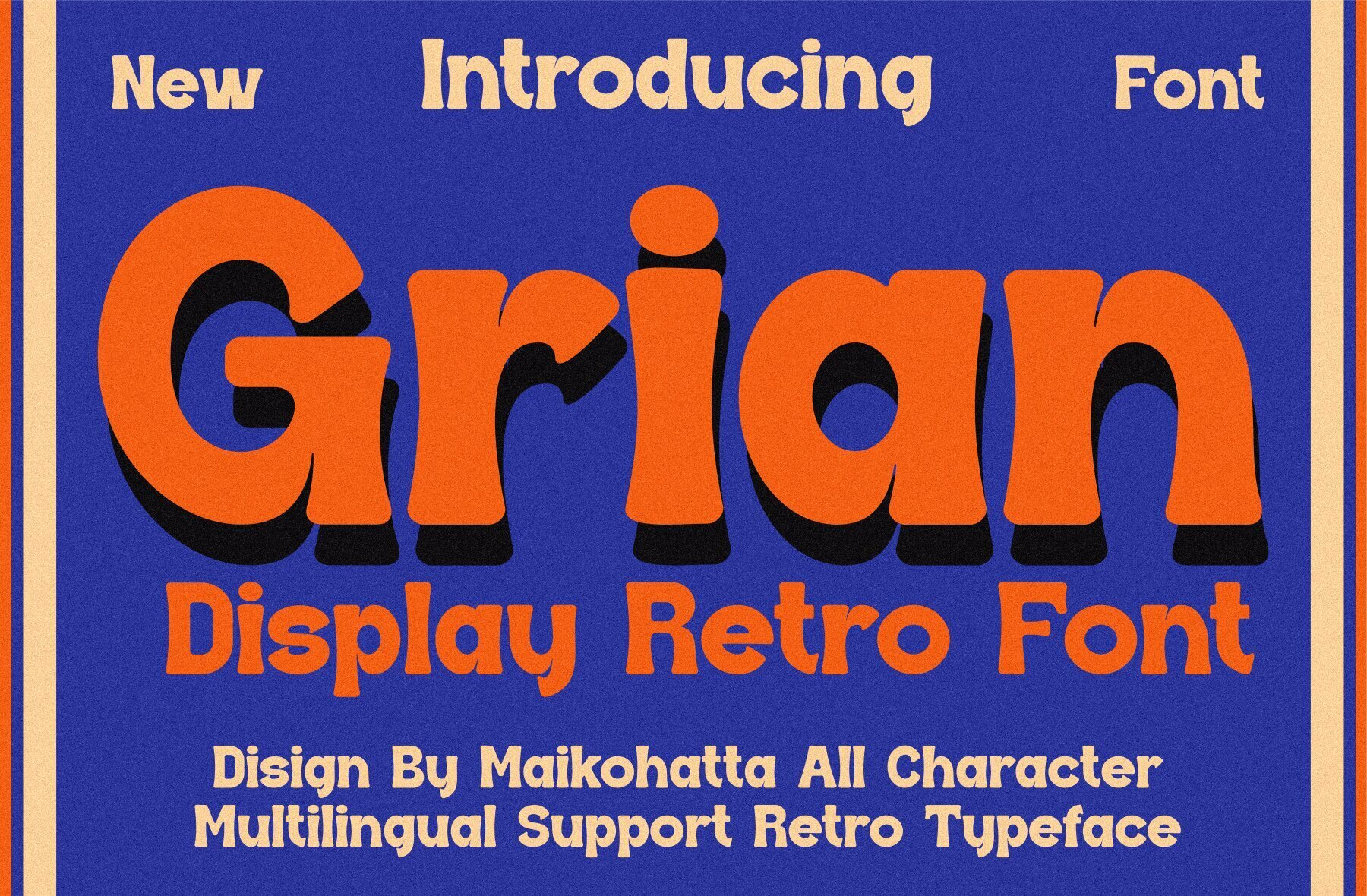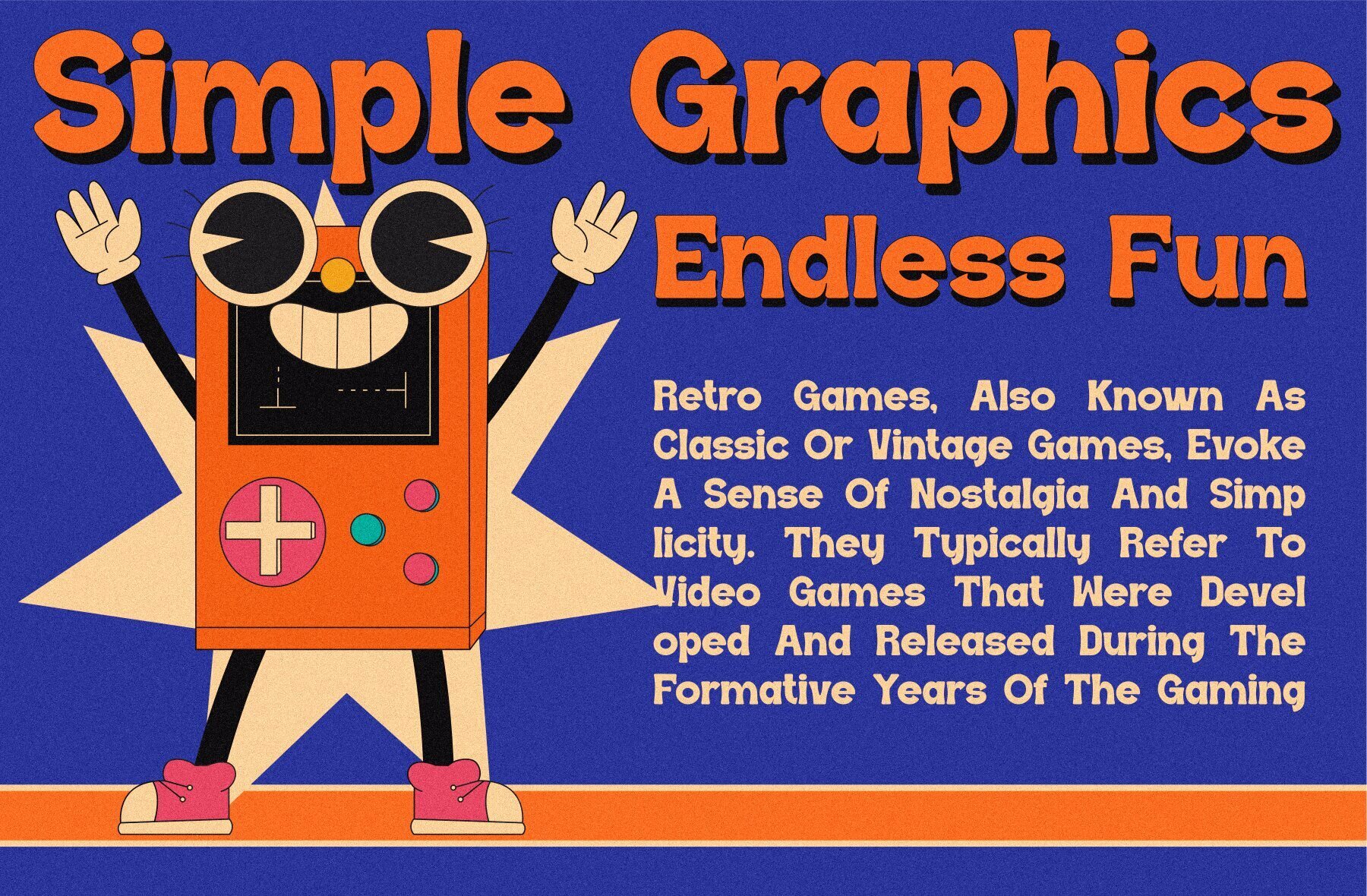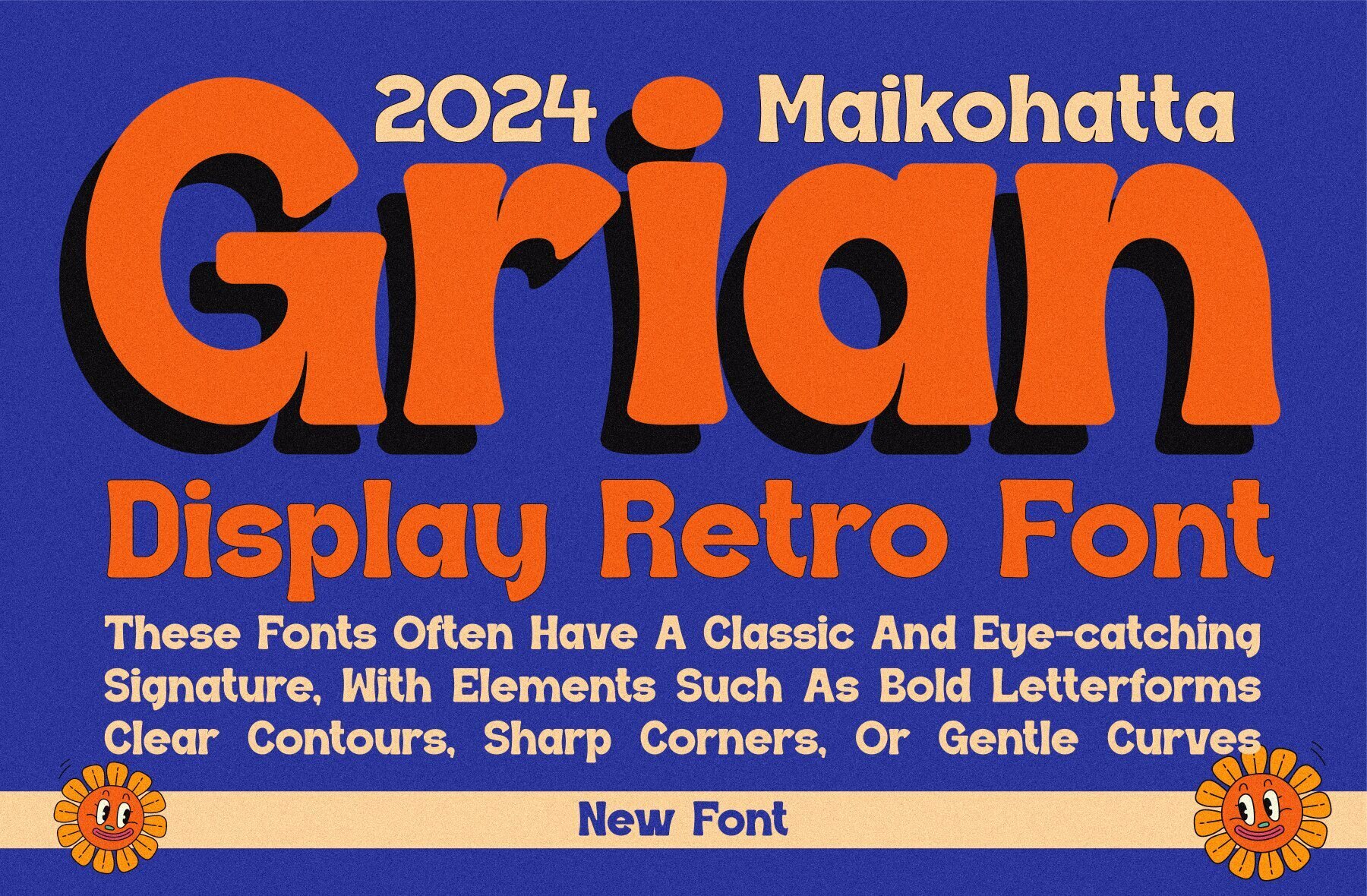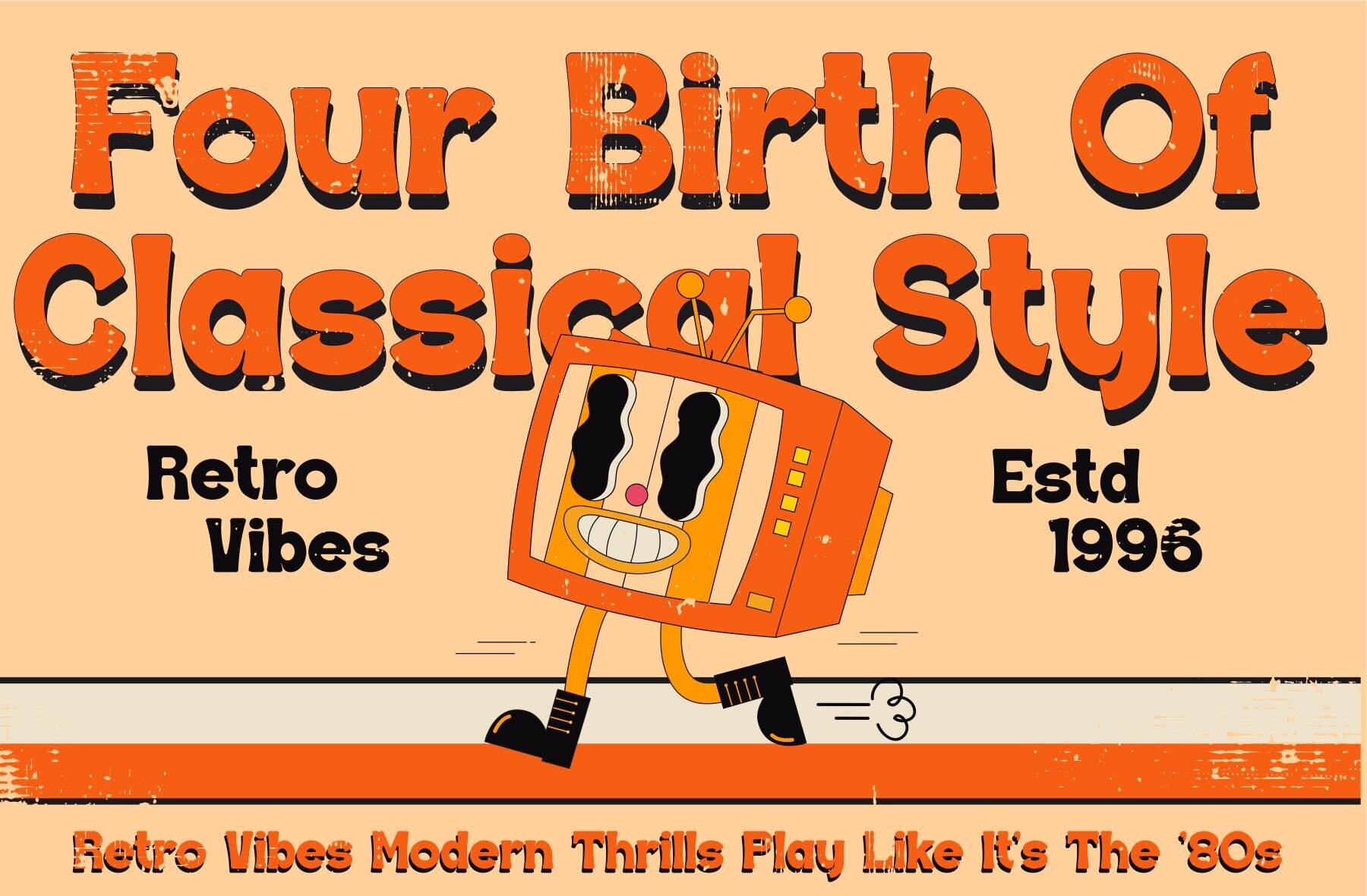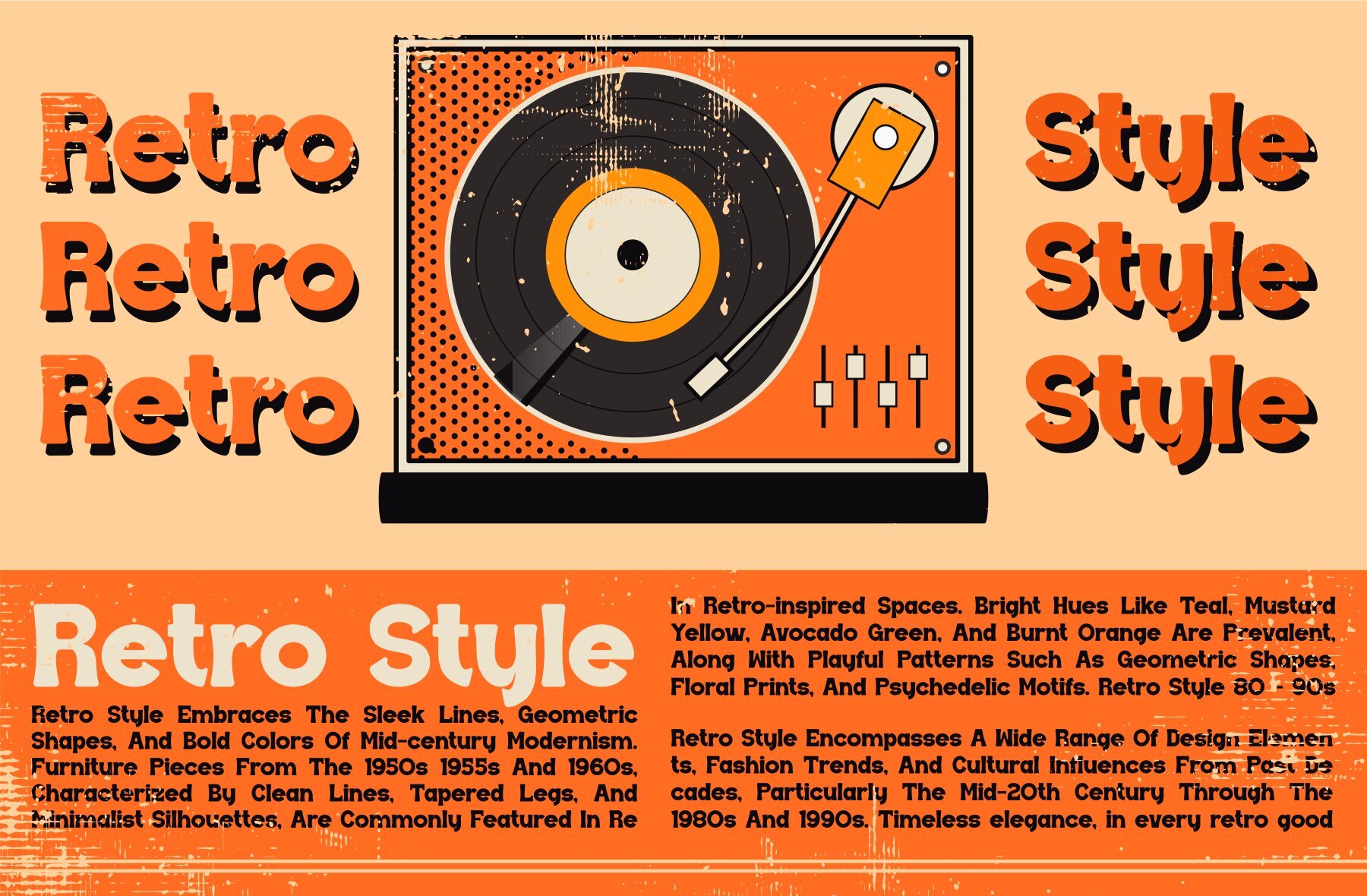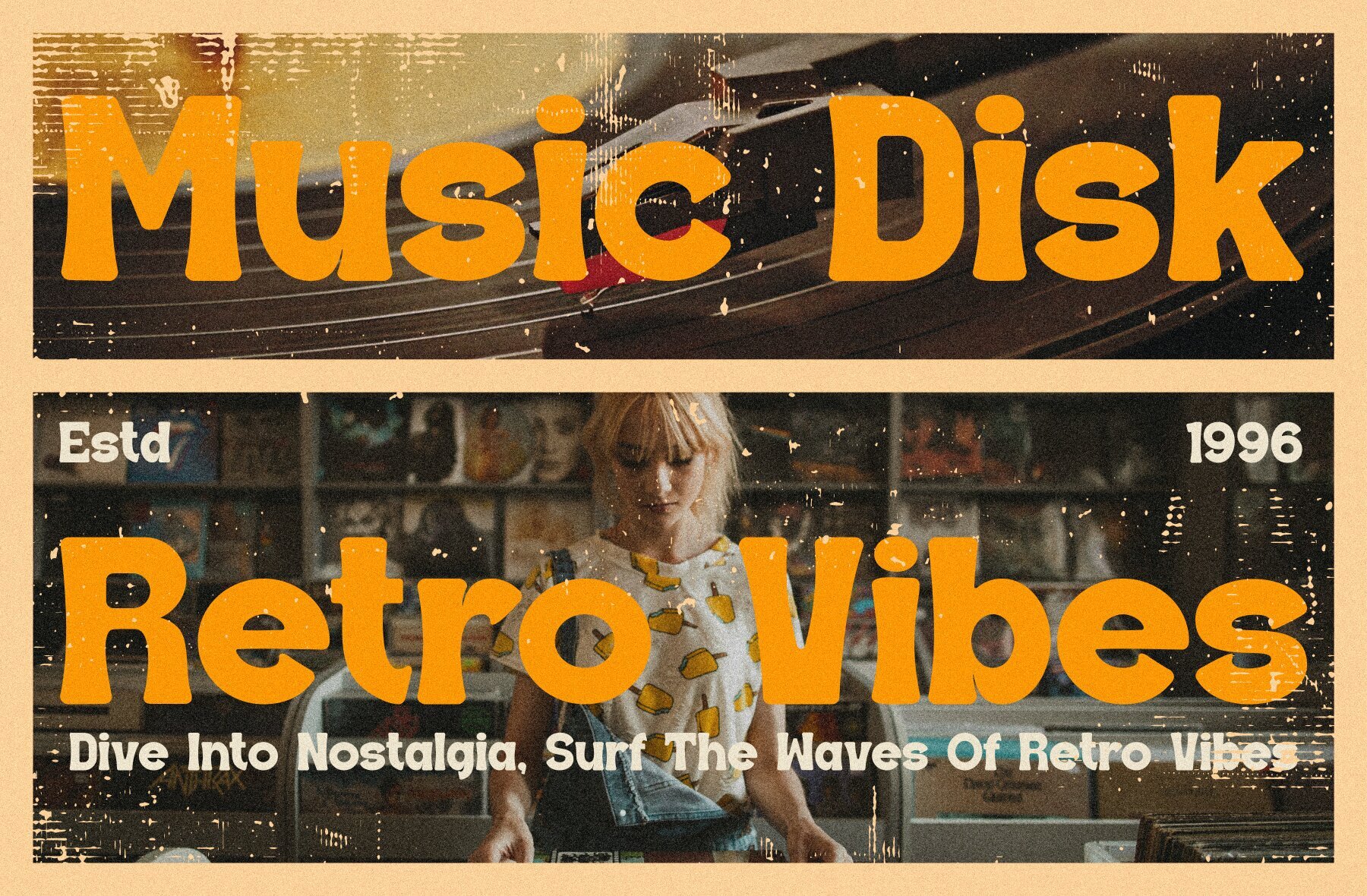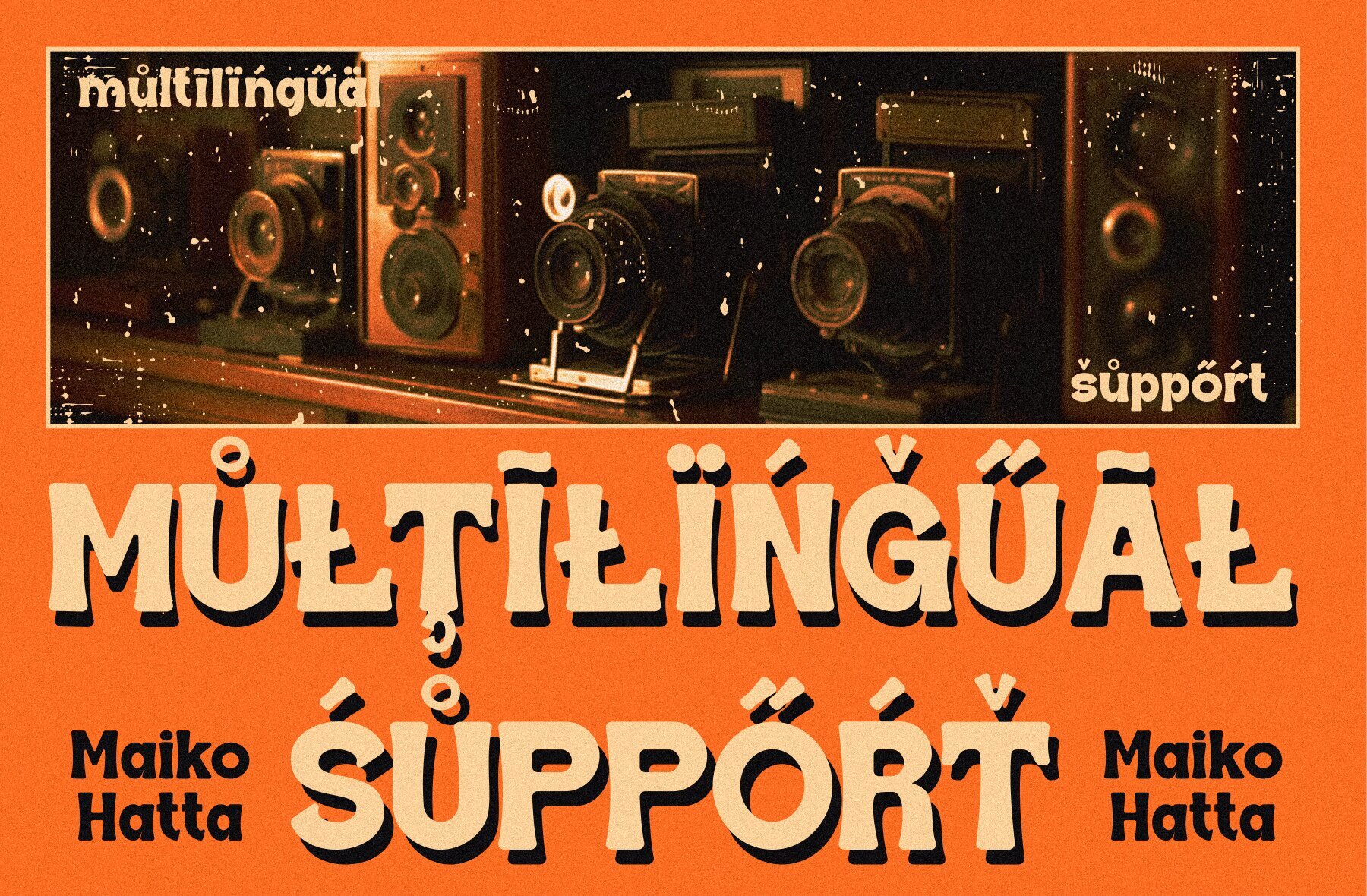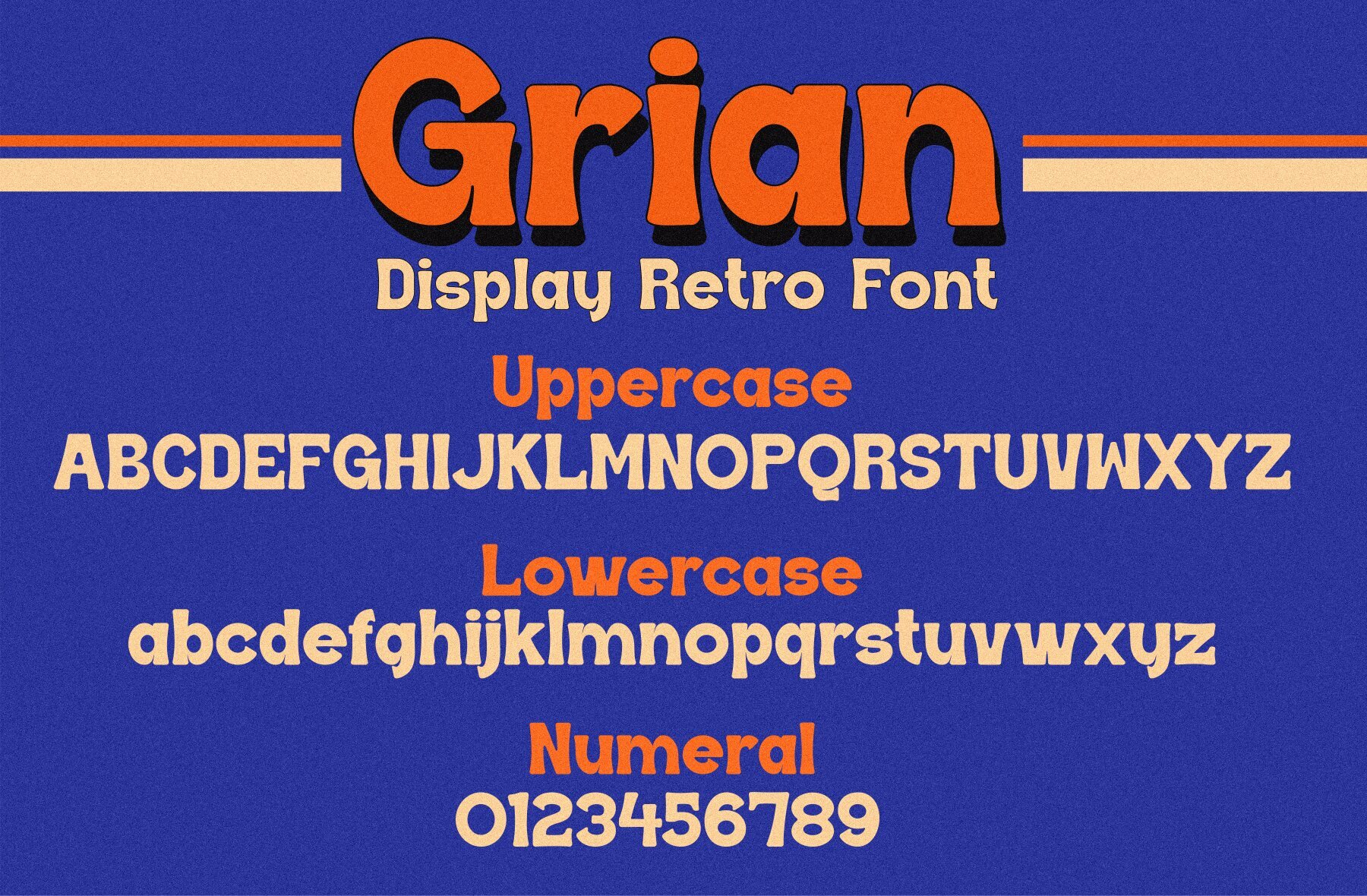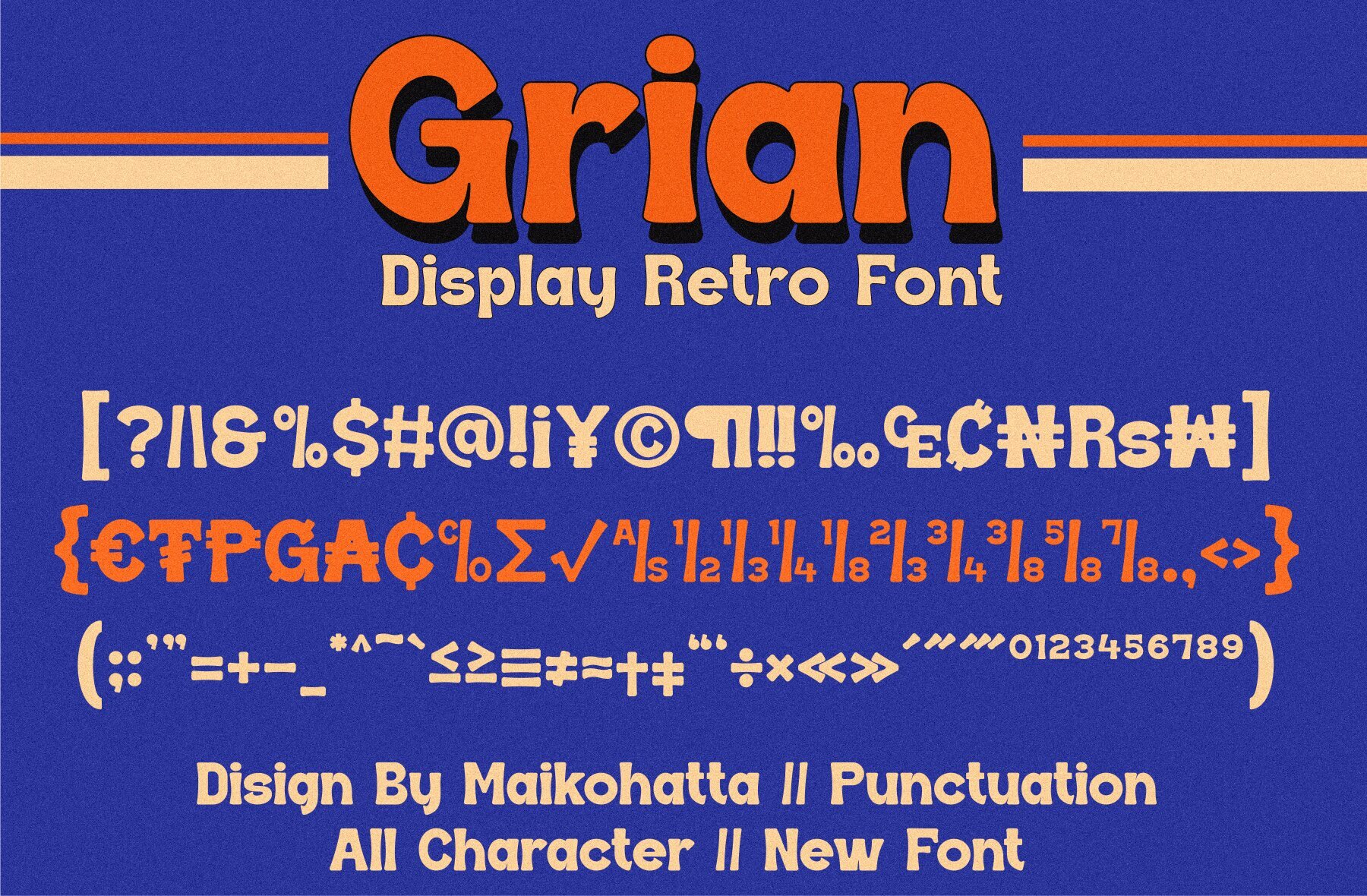
Grian Font
Grian Regular
Grian is a display retro font designed to evoke joy, cheerfulness, and a light atmosphere. Its handwritten style is reminiscent of the charm found in comics or cartoons. This font is perfect for projects aiming to convey playfulness and fun. Suitable applications include:Grian: Display Retro Font for Playful Designs
Ideal Use Cases